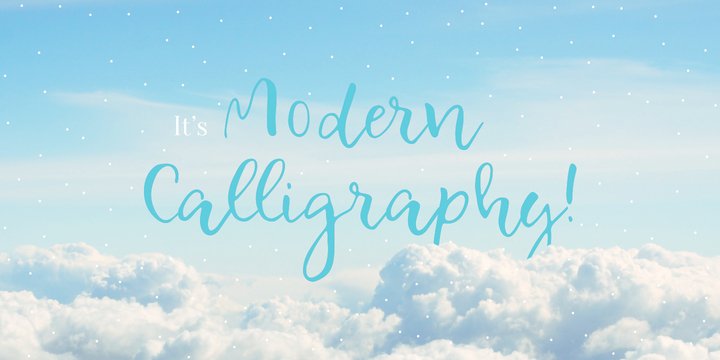
Celestina Script Font
Introducing Celestina Script Font! Celestina Script designed and shared by Piñata, this is a premium font, are sold on Myfonts, but it was great, it is free today for download. Celestina is the lively spirit, just like drops of ink on a piece of paper or clouds in the sky. The same spirit is maintained by the rounded letters of the script and by the characters’ small whorls. Celestina works perfect for both Moomins stories and personal blogs, as well as for the design of hand-made things, and even just then when you want to put yourself into a good mood!